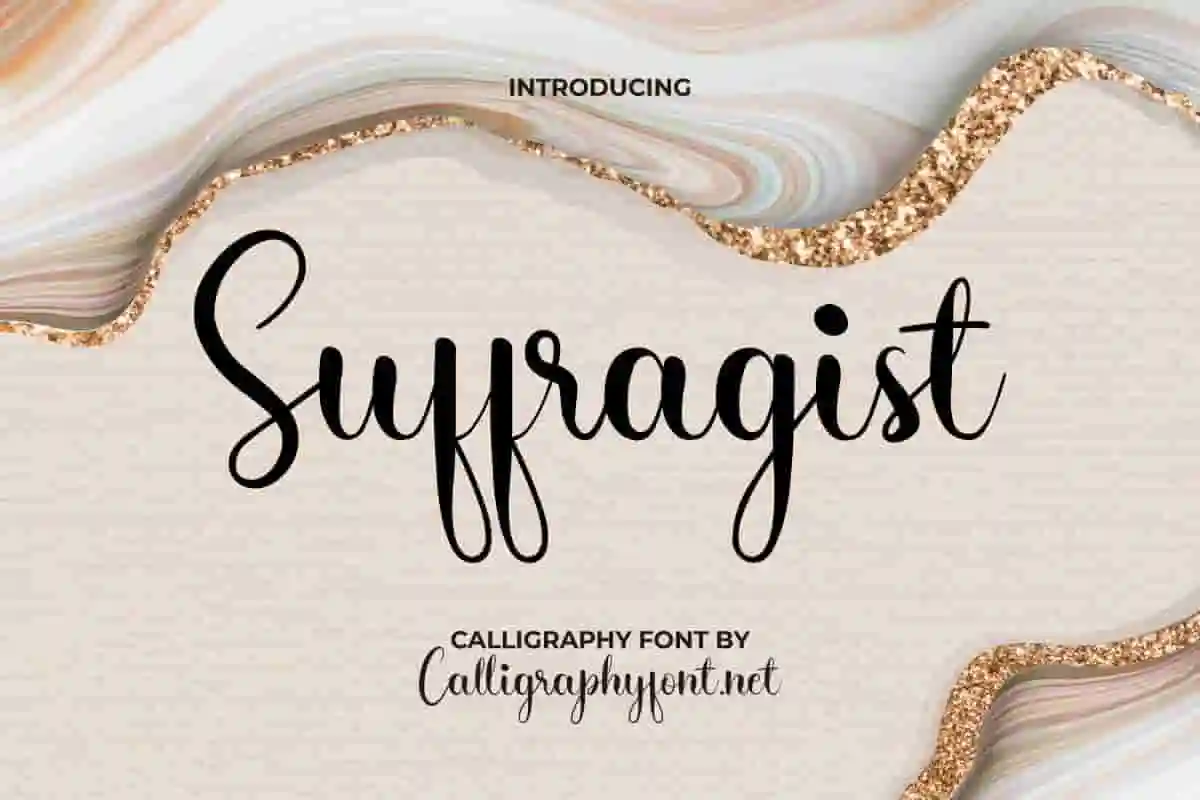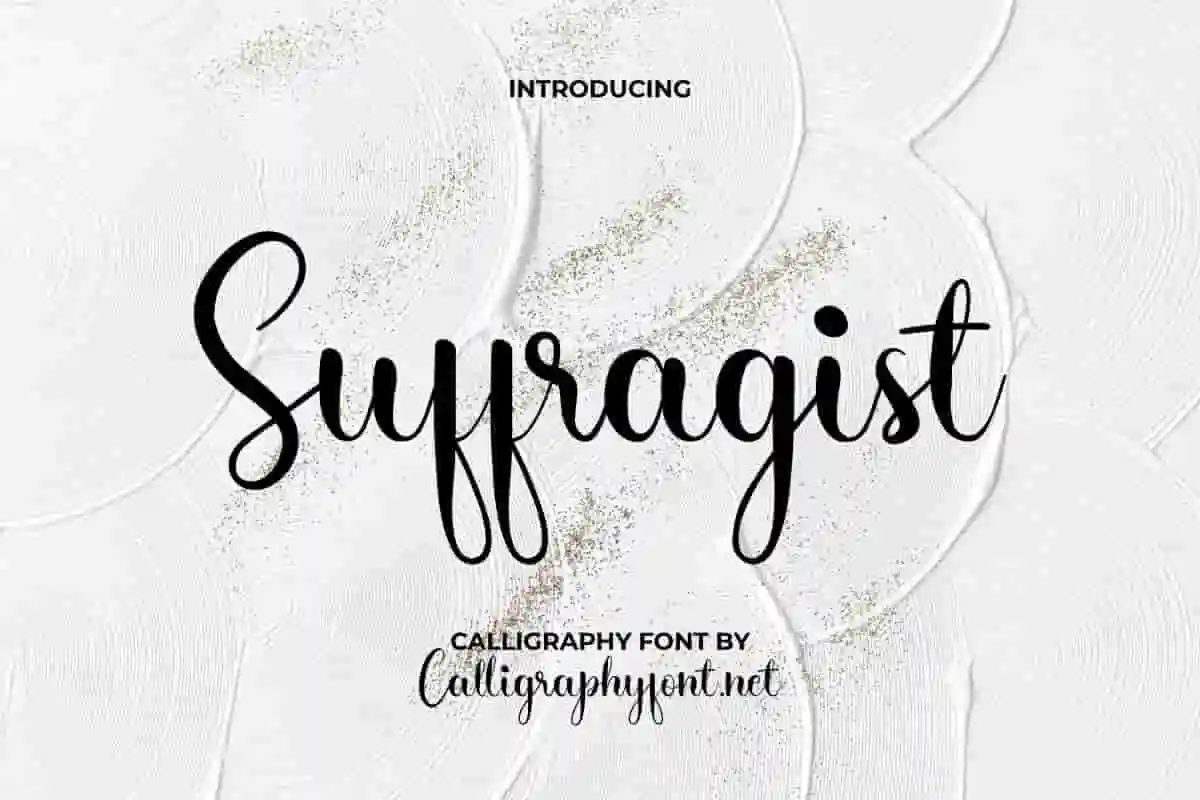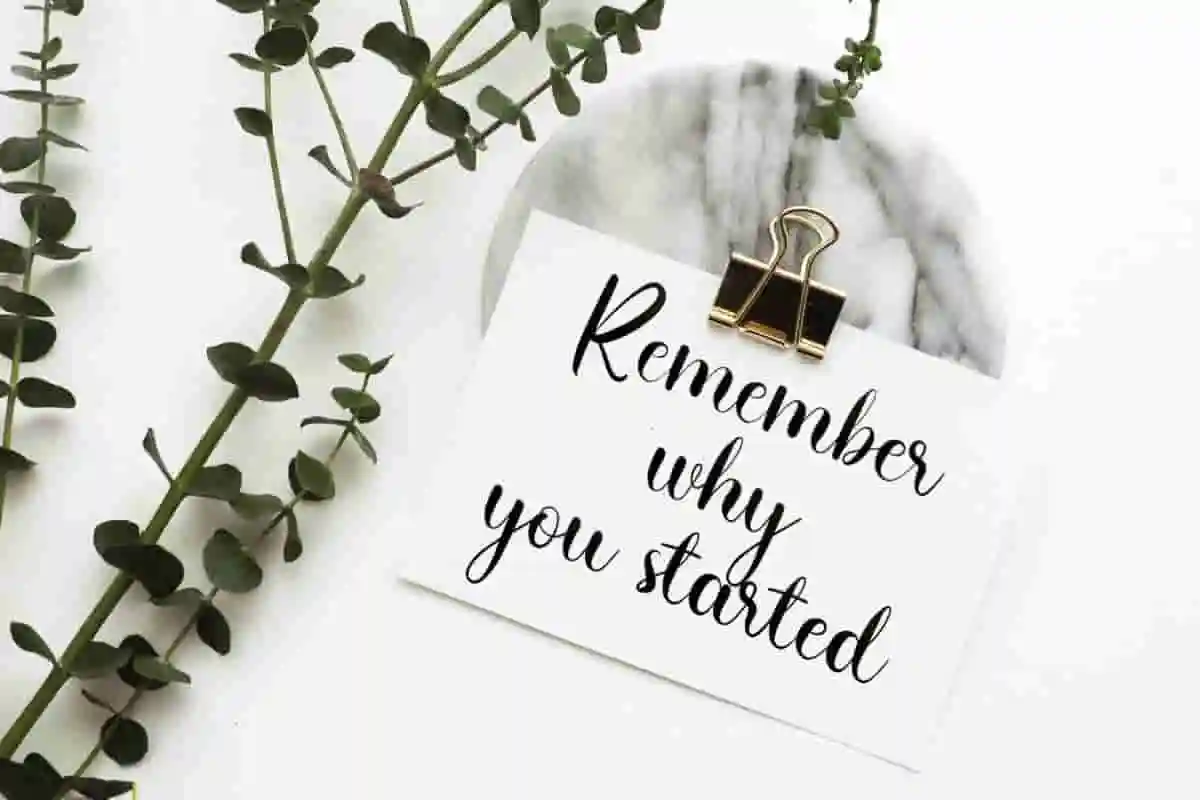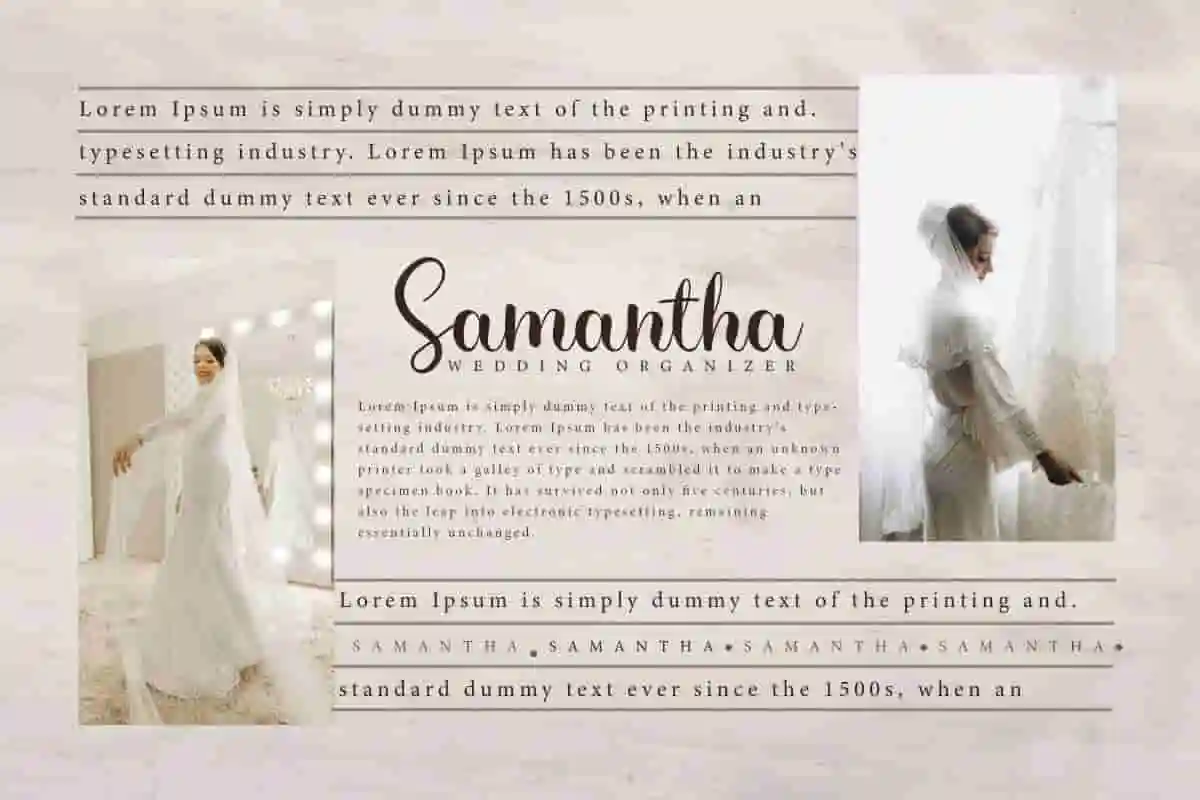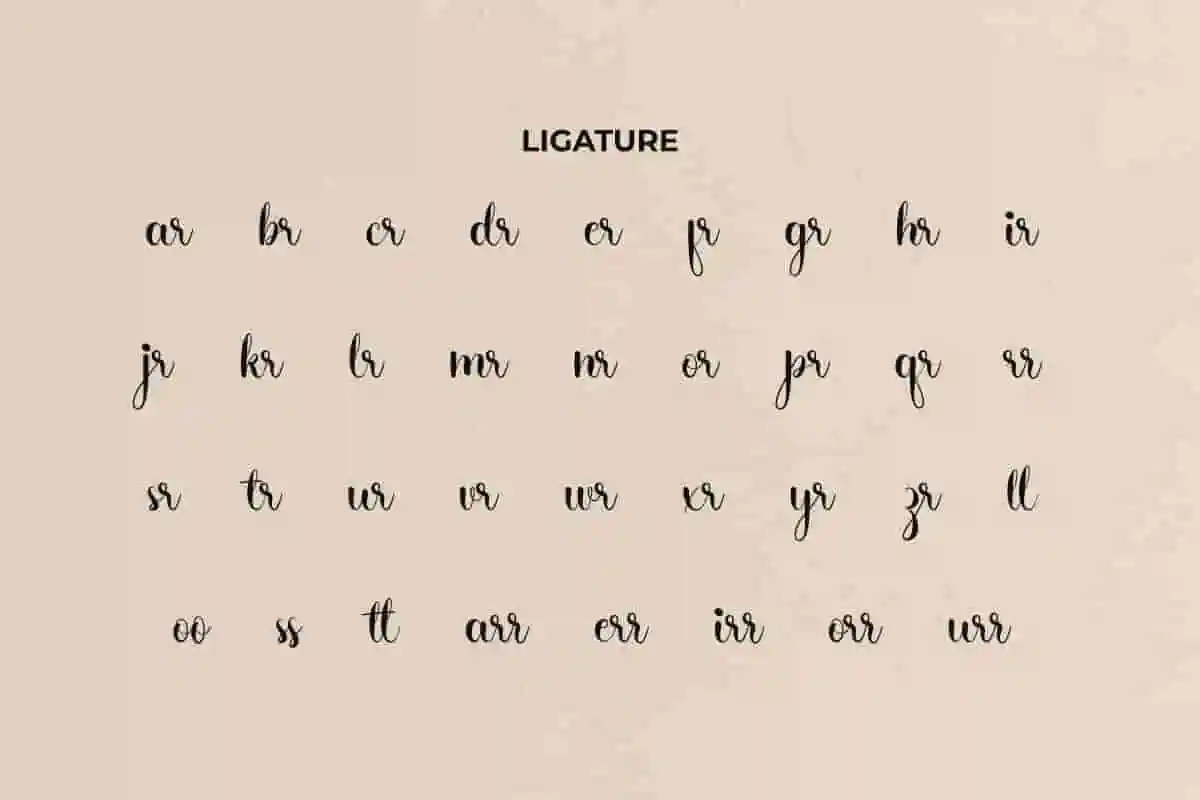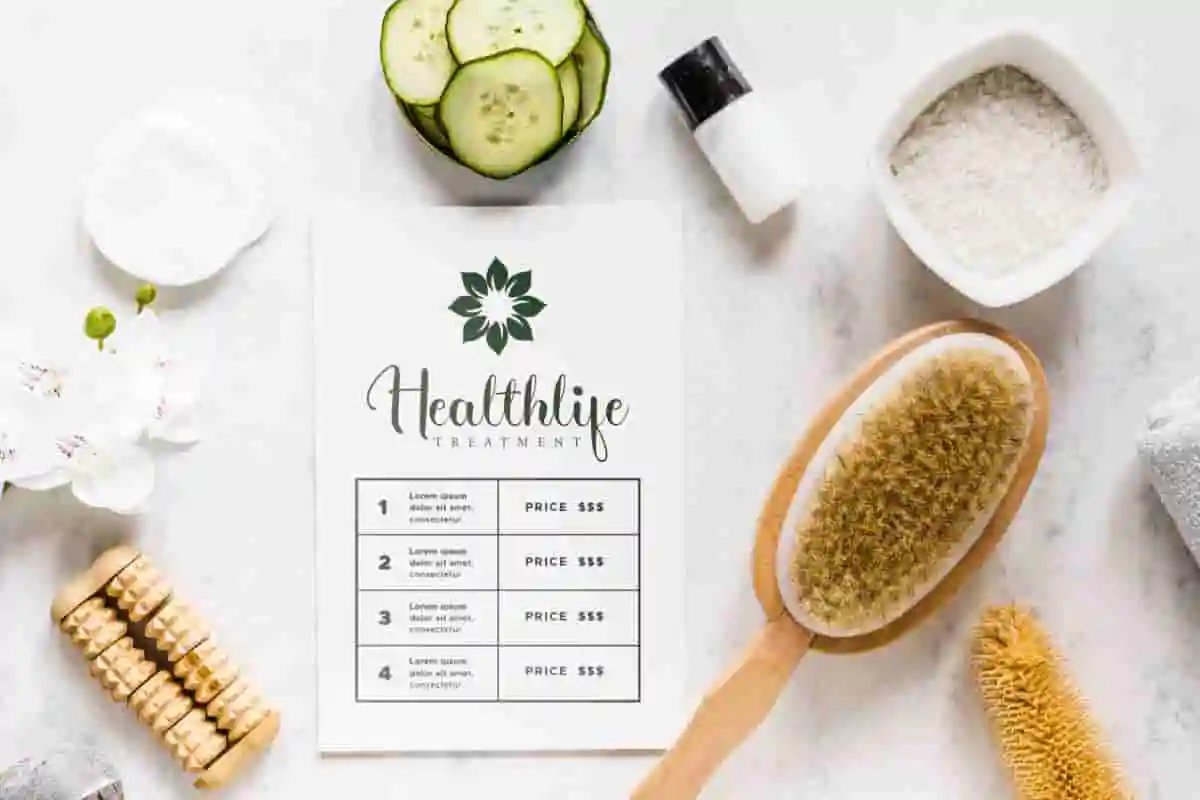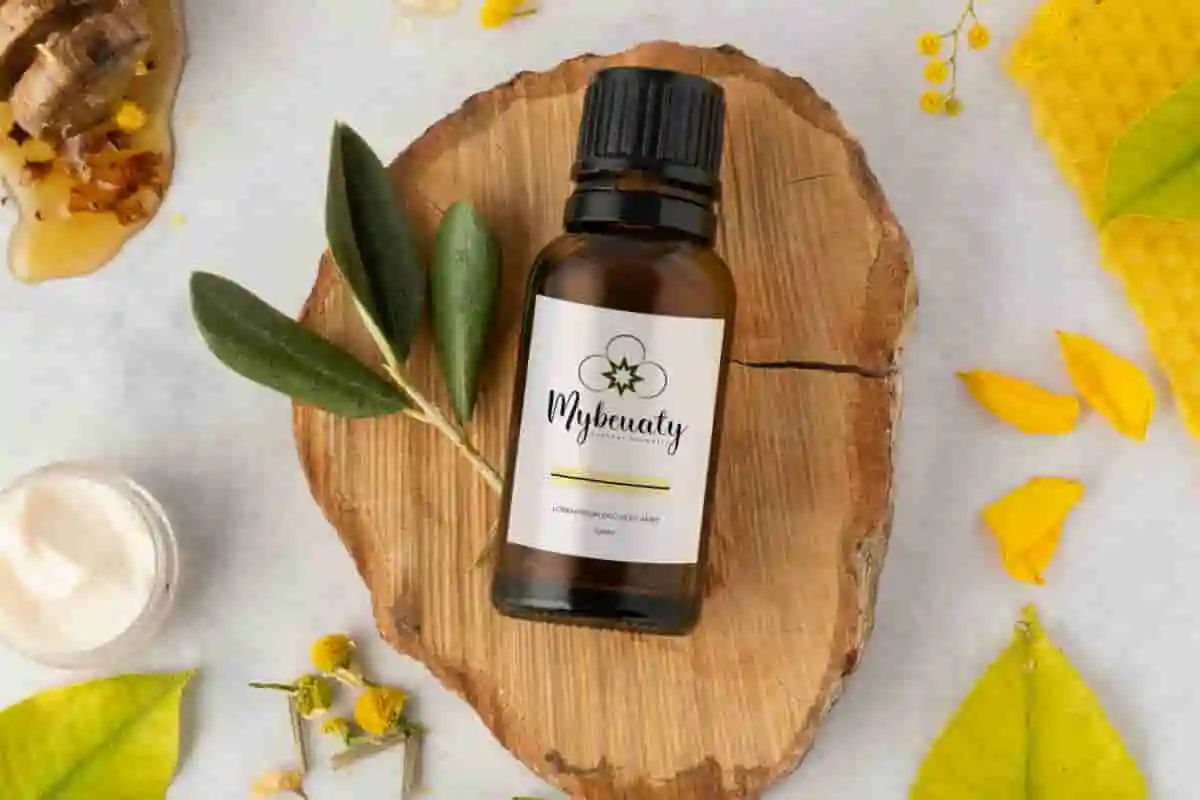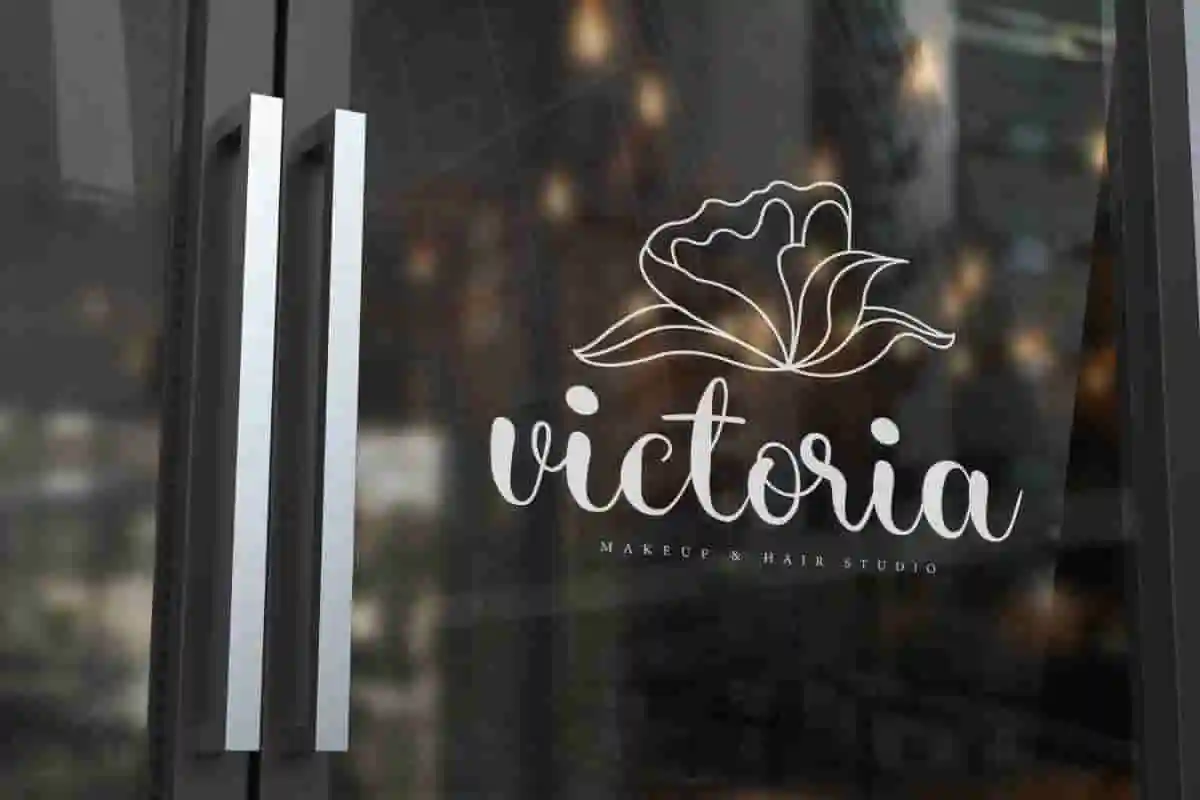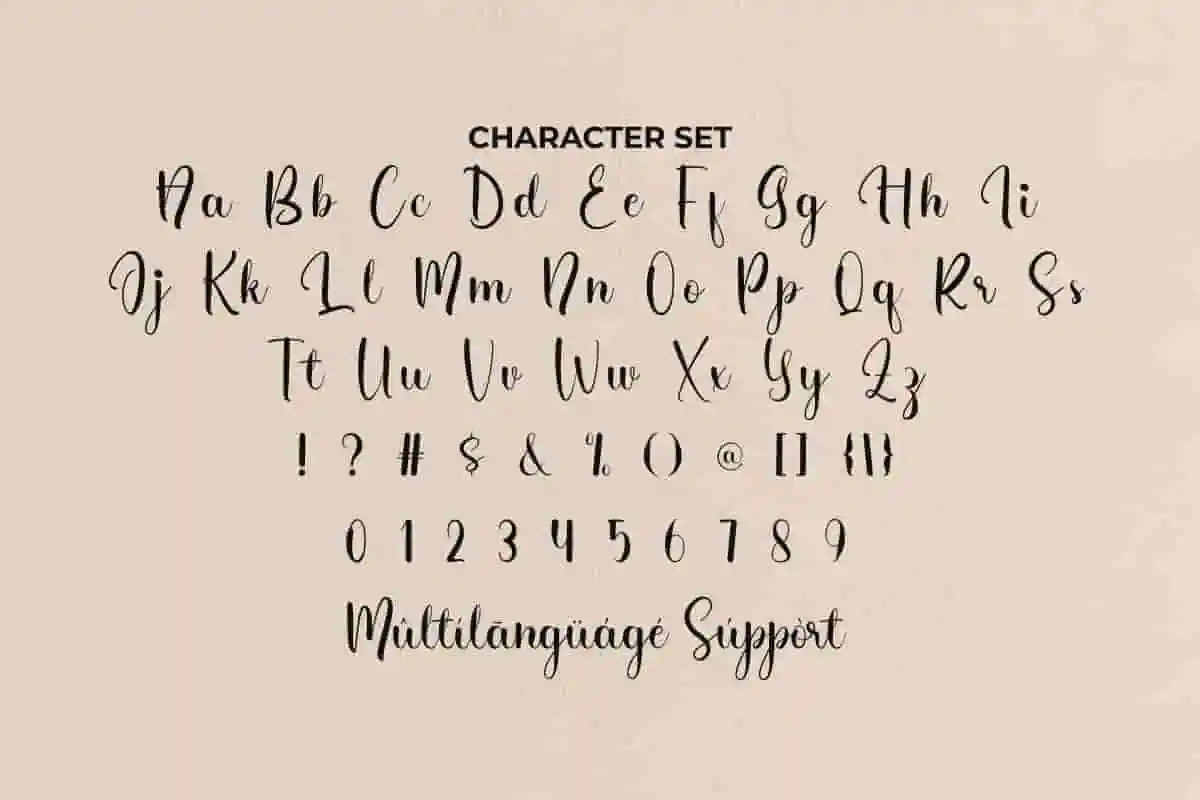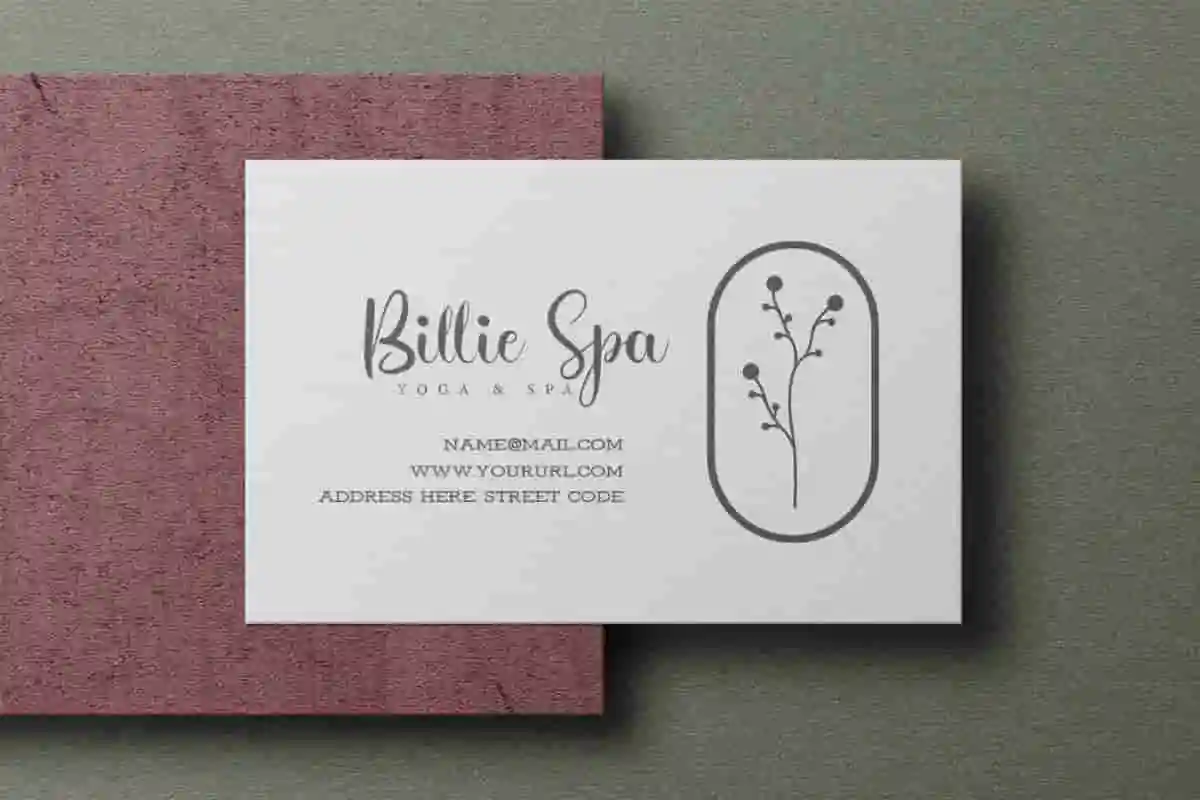
Suffragist Calligraphy Font
Suffragist Font is a casual calligraphy script font that will make it suitable for brand label, business card design, cosmetic, entrance sticker, price list brochure, spa, and much more.
Suffragist Font is a casual script with an elegant look, created by CalligraphyFonts. This font is carefully crafted to create a flawless form and readings that will be suitable for your creative projects, such as brand logo, brochure, business card, invitation, label, quote, signage, stationery, sticker, title, website, etc.
If you are looking for a font that blends beauty, sophistication, and versatility, Suffragist Calligraphy Font is the perfect choice. Designed with graceful strokes, delicate curves, and a refined balance of modern calligraphy, this typeface adds timeless elegance to any creative project.
Suffragist Calligraphy Font is more than just a font—it’s a design companion that brings personality and charm to your work. With its handcrafted style and smooth flow, this script font works wonderfully for wedding invitations, greeting cards, fashion branding, event posters, editorial layouts, and luxury product packaging. Its stylish appearance ensures your message stands out with sophistication and emotional impact.
Crafted with attention to detail, Suffragist Calligraphy Font is easy to read while still maintaining a romantic and artistic touch. Designers, creatives, and business owners will love how effortlessly it elevates their visual identity.
Suffragist Calligraphy Font will be great for any industry, including : artist, boutique, cosmetic, event organizer, fashion, florist, home decoration, publishing, real estate, restaurant, salon, spa, wedding, women’s fitness, and everything that needs a touch of classy script.
Suffragist Calligraphy Font comes with a full set of Uppercase and Lowercase Basic Characters, Number, a large range of Punctuation and Symbol, Ligature, and also supports multilingual characters. Ready to use both on Windows machine or Mac with simple installations. It’s tested to work well in the Adobe Apps (Illustrator, Adobe InDesign, Adobe Photoshop) CorelDraw, and others. PUA Encode Characters means you can access all the characters easily – Fully accessible without additional design software.